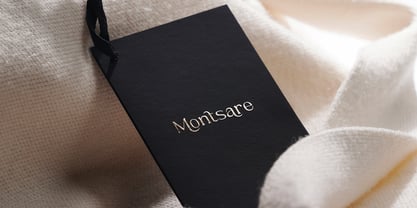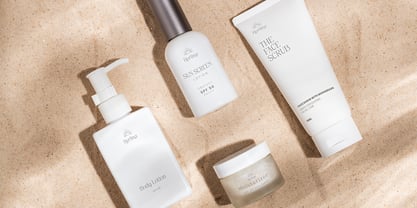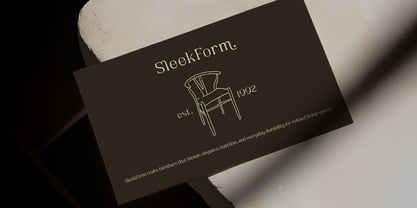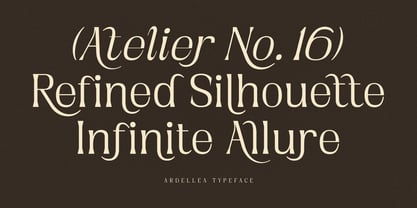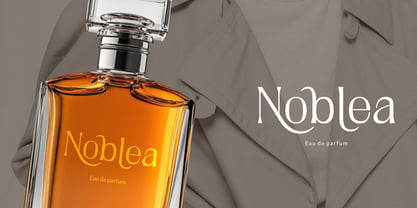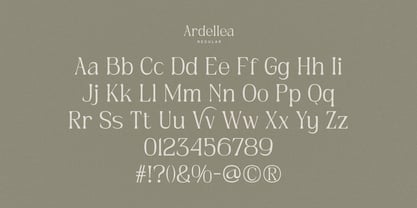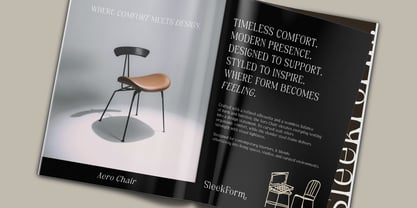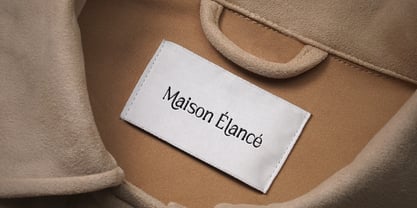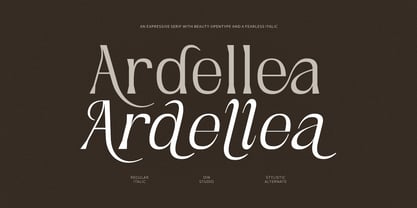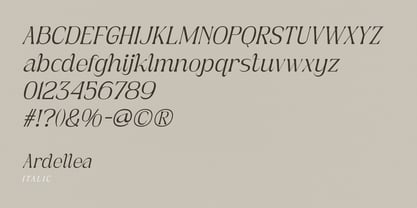
Ardellea
by Din Studio
Ardellea is a sophisticated modern serif font designed to bring elegance and versatility to contemporary typography. With its refined letterforms and balanced proportions, Ardellea embodies a clean modern style while maintaining the timeless appeal of serif design. One of Ardellea’s standout characteristics is its beautifully designed italic version. The italic set introduces a sense of movement, perfect for emphasizing text, creating visual hierarchy, or adding a subtle touch of sophistication to your layouts. In addition, enjoy the features here.
Features:
• Ligatures
• Stylistic Set
• Multilingual Supports
• Numerals and Punctuations
Ardellea fits in logos, quotes, name cards, branding, posters, and many more designs. Find out more ways to use this font by taking a look at the font preview.